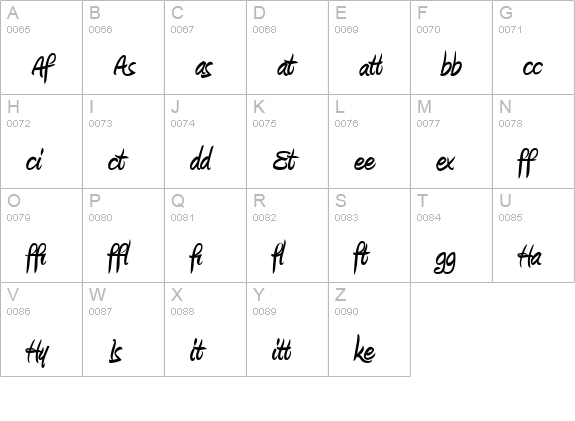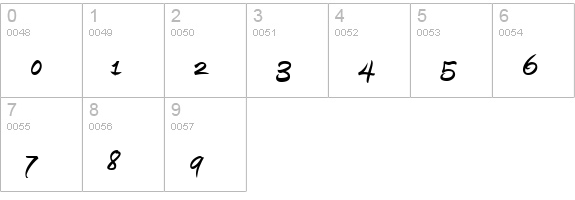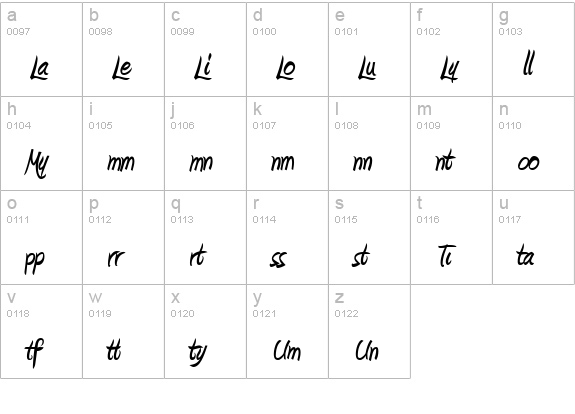
Amienne Ligatures Bold Font Details
Amienne Ligatures Bold is a strong, high-contrast variant in the Amienne typeface family \xE2\x80\x94 well suited to headlines, attention-grabbing titles, and strong calls-to-action.
Amienne Ligatures Bold font is a stunning display typeface that exudes elegance and sophistication. With its bold and expressive letterforms, this font is perfect for making a statement in headlines, titles, and branding materials. The unique ligatures add a touch of charm and personality to your designs, making them stand out from the crowd. What makes Amienne Ligatures Bold font even more appealing is that it is available for free download at FontsMarket.com. This means you can easily access this beautiful font and use it in your projects without any cost. Whether you're working on print materials, digital designs, or web content, Amienne Ligatures Bold font is sure to elevate your work and leave a lasting impression on your audience.